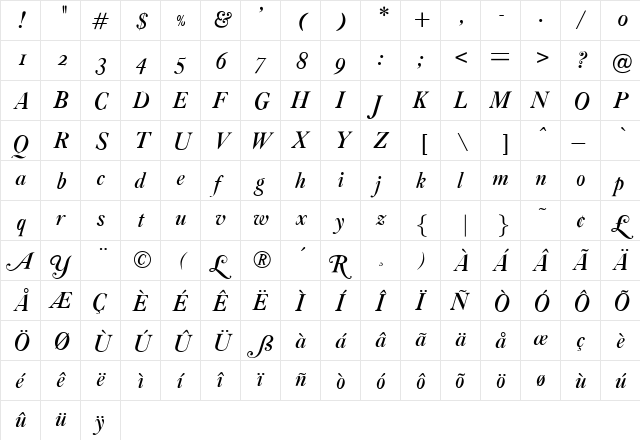
OPTIAmericanCaslon Medium Font Preview
OPTIAmericanCaslon Medium
OPTIAmericanCaslon Medium Font Details
Design Context for OPTIAmericanCaslon Typeface
OPTIAmericanCaslon offers clean, dependable letterforms without strong stylistic allegiance, making it a practical choice for designers who need flexibility.